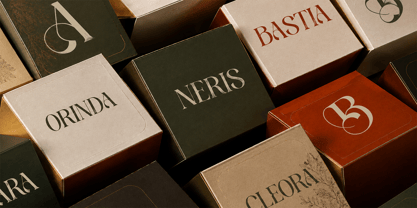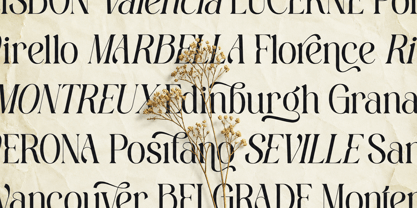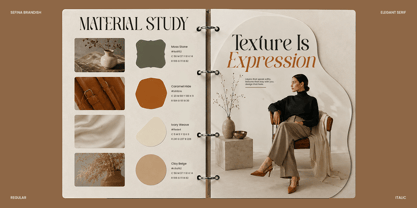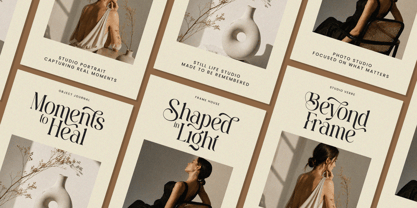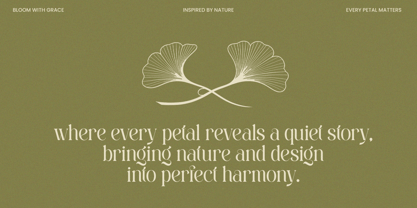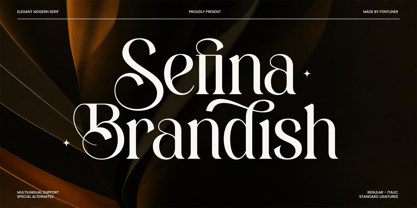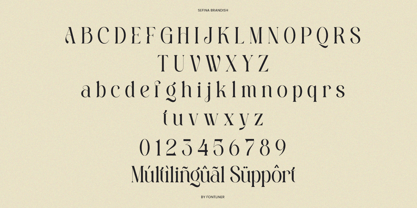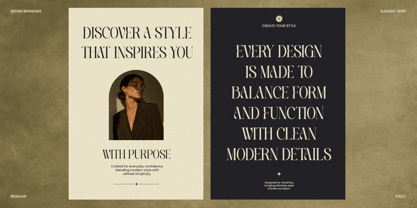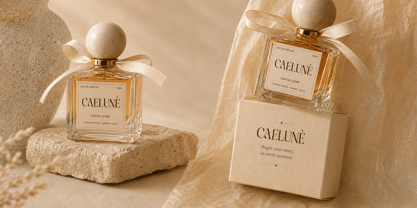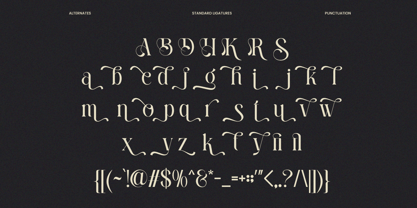
Sefina Brandish
The Sefina Brandish Font Family was designed by Ghina Luthfiarieska and published by Font Liner. Sefina Brandish contains 2 styles and family package options. More about this family
Sefina Brandish is a refined luxury serif font designed to bring timeless elegance to every creative project. Featuring beautifully balanced letterforms and high contrast details, it creates a sophisticated look that is perfect for premium branding, editorial layouts, and luxury packaging.
Inspired by the world of fashion, beauty, and high-end publishing, this typeface delivers clean, graceful typography that stands out in logos, magazines, wedding stationery, cosmetic packaging, jewelry branding, social media, and boutique identities. Its elegant proportions provide a professional and premium appearance while remaining highly readable.
Whether you're designing a luxury brand, creating editorial headlines, developing product packaging, or crafting elegant marketing materials, Sefina Brandish offers a versatile serif style that adds confidence, sophistication, and timeless character to every design.
Regular and Italic
Uppercase and Lowercase
Number, Symbol, and Punctuation
Multi Language Support